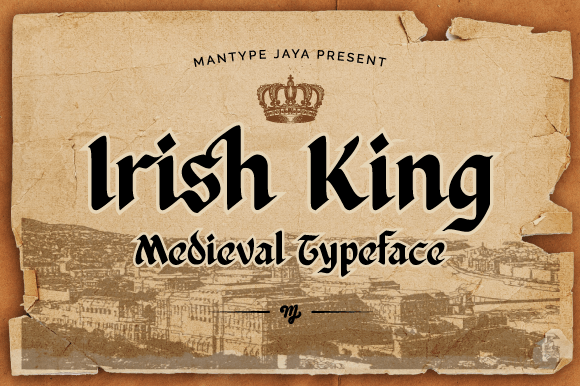
Introducing Irish King Font, the perfect choice for all your nonfiction book projects. Created by Mantype Jaya, this blackletter display typeface beautifully captures the essence of the Middle Ages and seamlessly brings it into the modern world.
With its classic blackletter shape and a touch of Celtic influence, Irish King Font will instantly transport your readers back in time, immersing them in a captivating and magical atmosphere.
But what sets Irish King Font apart is its versatility. Whether you're working on a historical novel, a fantasy saga, or even a scholarly thesis, this font will add a touch of elegance and authenticity to your text. Its unique design is bound to captivate your readers, making their reading experience truly unforgettable.
But that's not all. Irish King Font is also PUA encoded, which means accessing all the glyphs and ligatures is a breeze. Say goodbye to tedious font hunting and hello to a world of creativity and convenience.
Imagine your readers being instantly drawn to your book's cover, enticed by the striking and enchanting letters of Irish King Font. Picture them flipping through the pages, completely engrossed in the story, all thanks to the emotional connection this font creates.